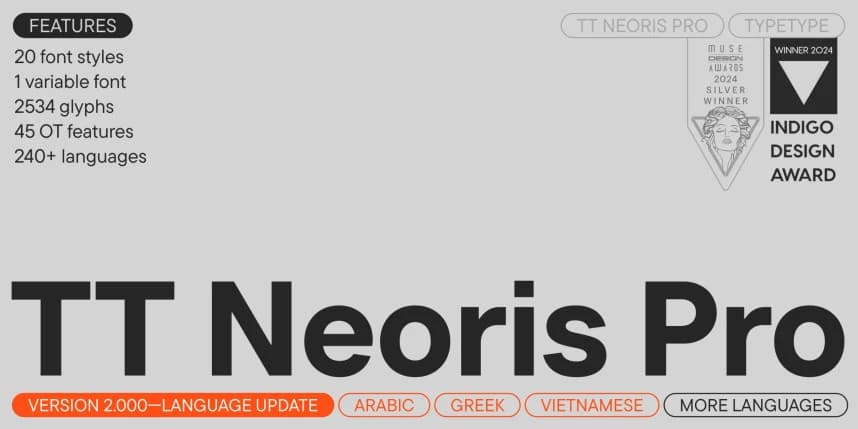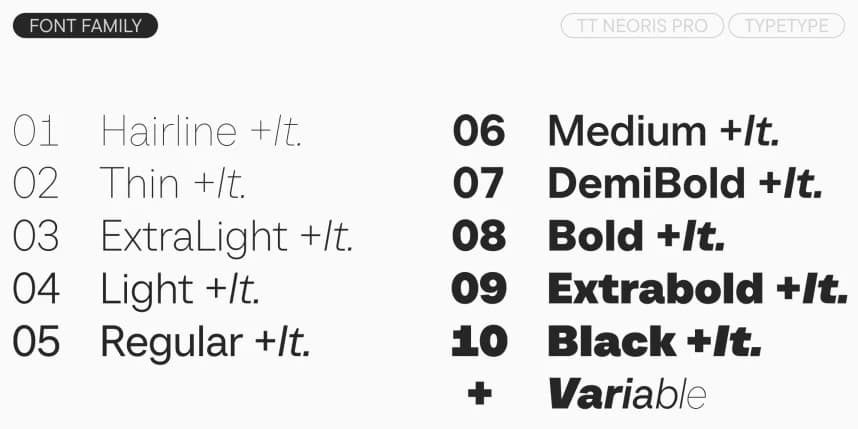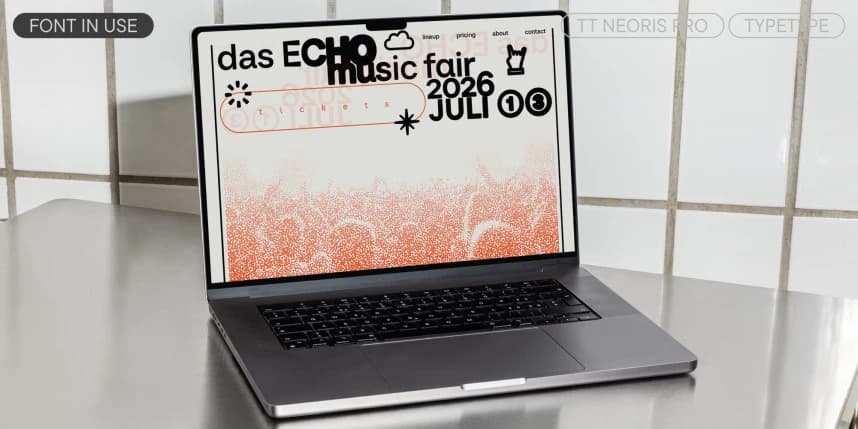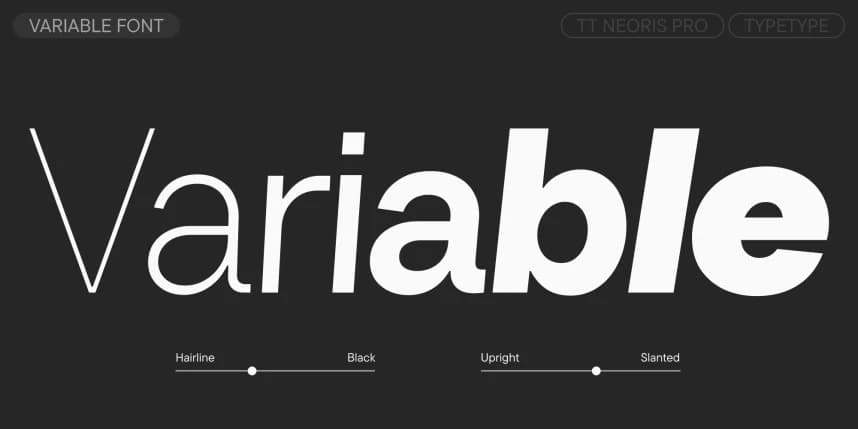
TT Neoris Pro Font Family
TT Neoris Pro Font Family. TT Neoris Pro version 2.000—now with support for Greek, Arabic, and Vietnamese! TT Neoris Pro is a concise neo-grotesque for universal use. We developed this font family over two and a half years.